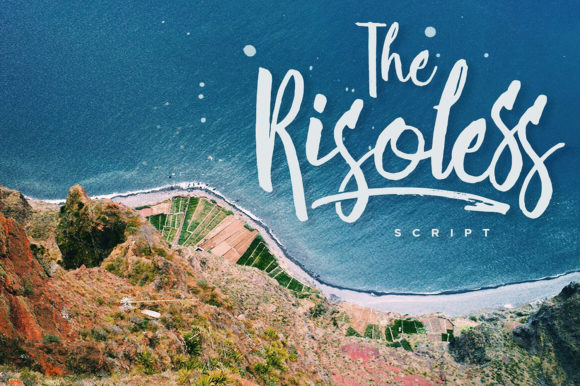
Journey into the Realm of Enchanting Cursives with Risoless Font: A Symphony of Elegance for Your Creative Expressions
In a world of digital aesthetics, fonts hold the power to transform the ordinary into the extraordinary. Introducing Risoless Font, a captivating script font designed to ignite your creativity and elevate your designs to new heights.
From the moment you lay your eyes on Risoless, you'll be captivated by its graceful strokes, playful curves, and a touch of whimsy that dances along the baseline. It's a font that speaks volumes, adding a personal touch to your designs, and leaving an unforgettable impression on your audience.
With Risoless as your creative companion, you'll discover a world of possibilities. Its elegant characters are meticulously crafted to bring a touch of enchantment to any project, whether it's a personal journal, a heartfelt letter, a captivating poster, or an eye-catching social media post.
Feel the joy of crafting beautiful, flowing words with Risoless. Each letterform is a work of art, designed to capture the essence of emotion and expression. Its unique style adds a touch of playfulness to serious projects and a touch of sophistication to lighthearted ones.
Whether you're a seasoned graphic designer seeking a font that stands out or a creative enthusiast eager to add a personal touch to your digital creations, Risoless is the perfect choice. Its versatility knows no bounds, adapting seamlessly to a wide range of projects and styles.
So, unleash your creativity and embrace the allure of Risoless Font. Let its enchanting strokes guide you on a journey of self-expression, creating designs that resonate with your audience and leave a lasting impression. Step into the world of Risoless and discover the boundless possibilities that await you.